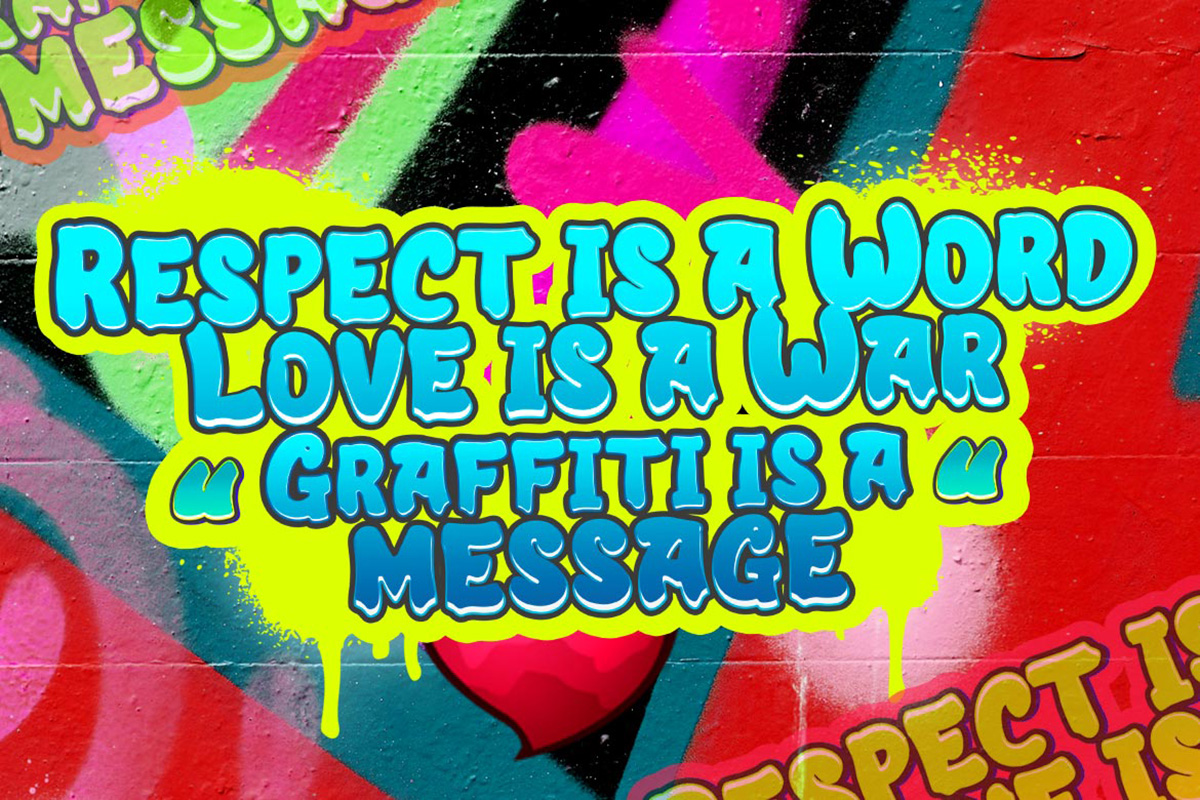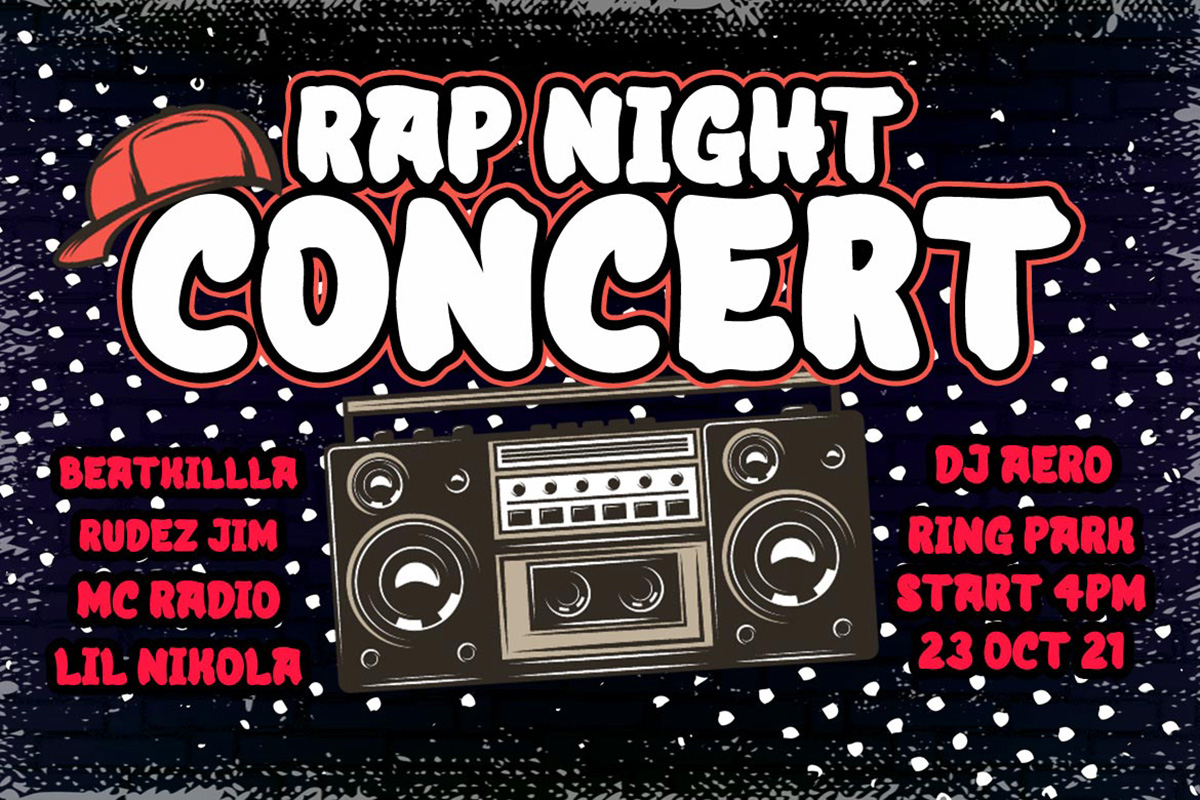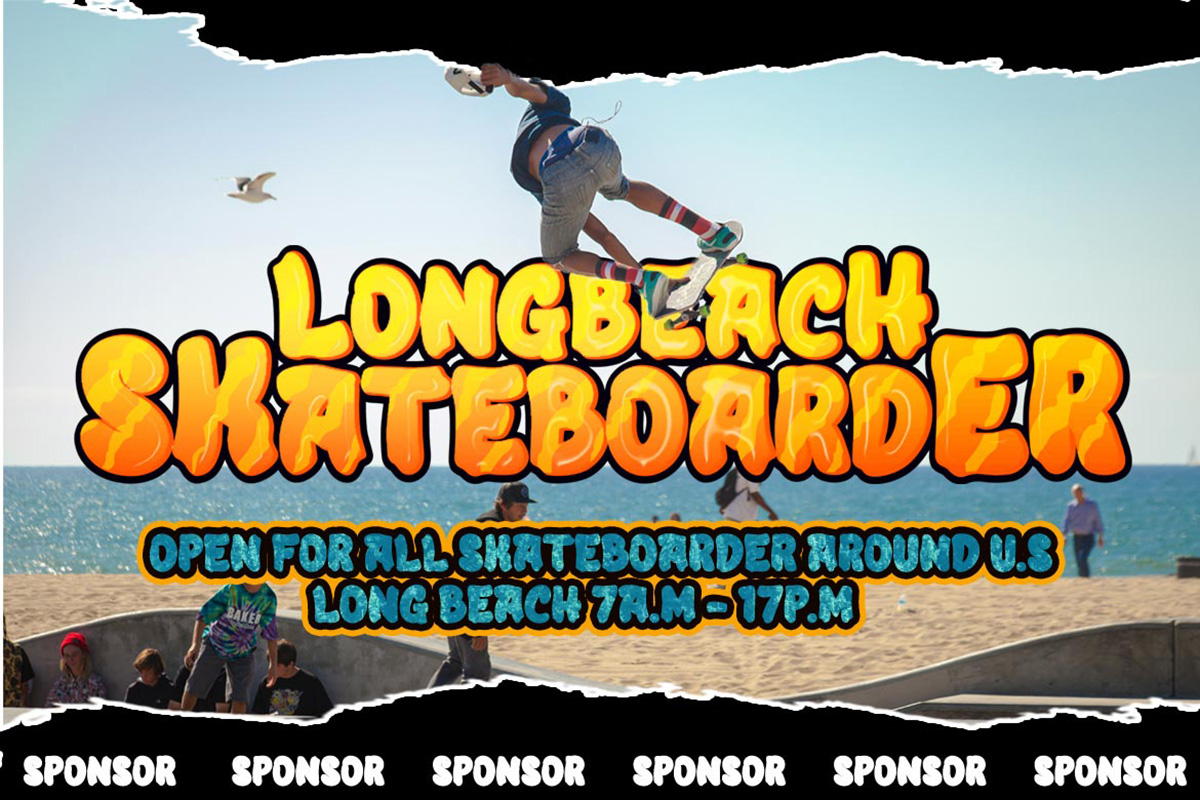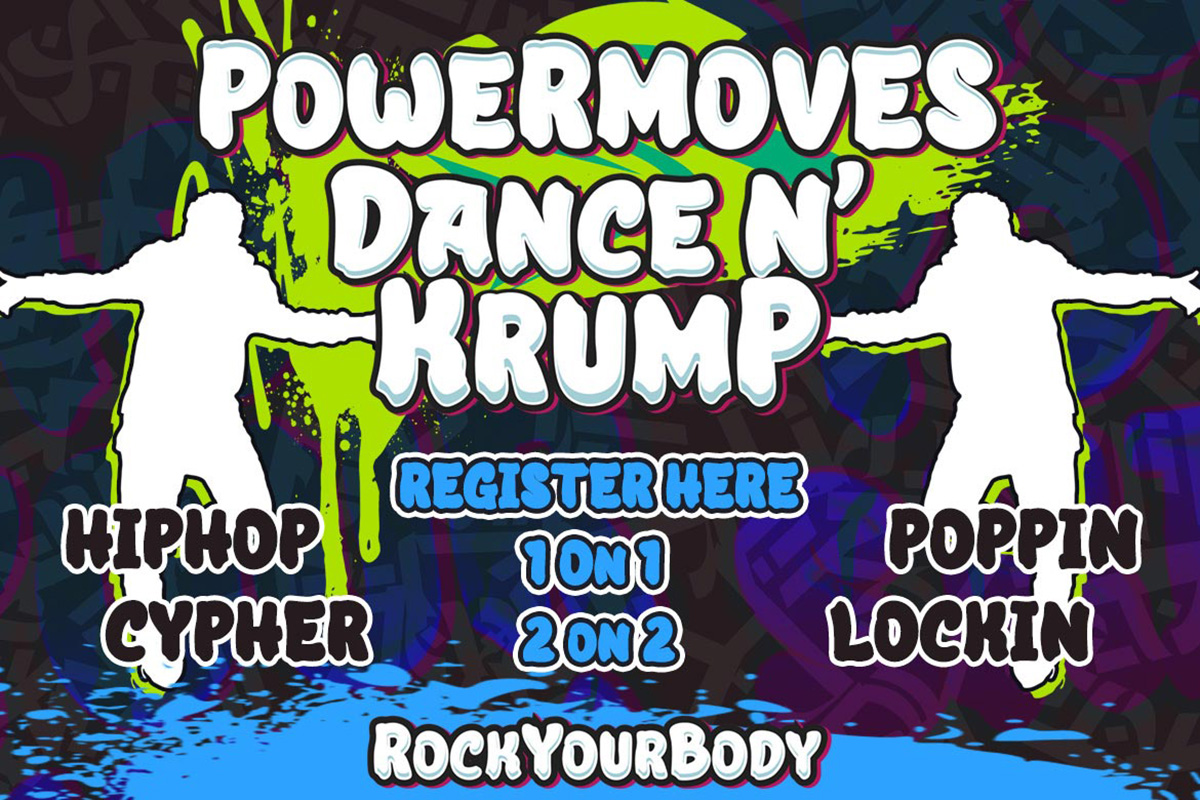
Angombe Free Font
Introducing Angombe Free Font, an energetic graffiti-styled display font filled with vibrant colors. Infused with a sense of playfulness and authenticity, Angombe is an excellent choice for children’s activities or school projects. Enhance your designs with this bold, chunky lettered font and experience how it brings them to life with dynamic flair. This free typeface was designed by a talented Twin Letter. If you like it don’t forget to check out the full version.